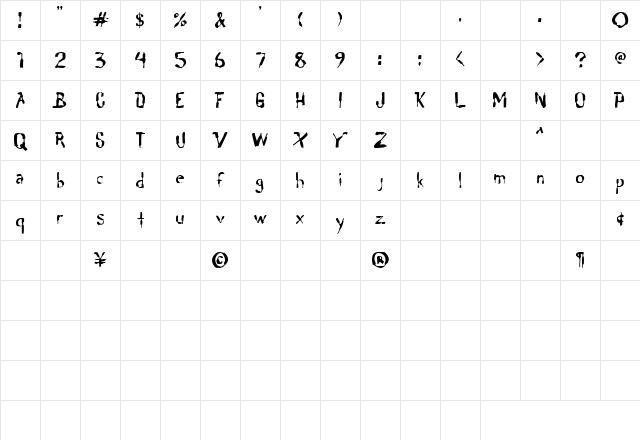
Lochen Regular Free Font
Lochen Regular
Lochen Family
Design Context for Lochen
Lochen is a composed and adaptable typeface that performs quietly and consistently across a wide range of design contexts.